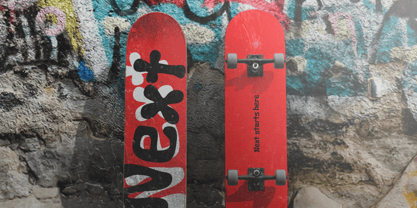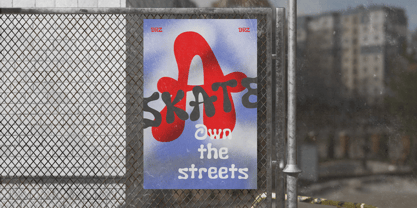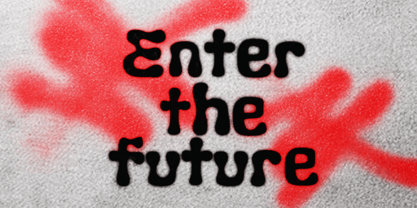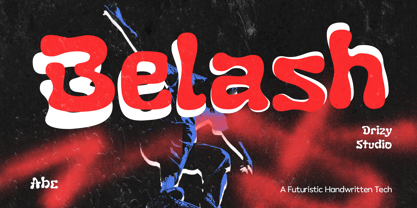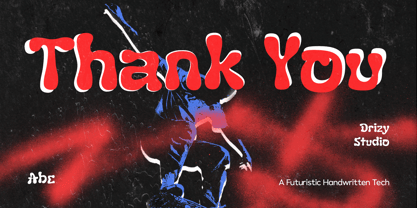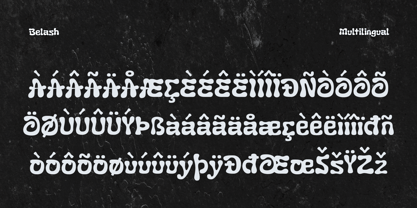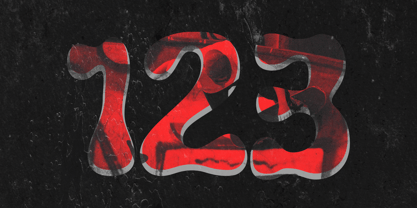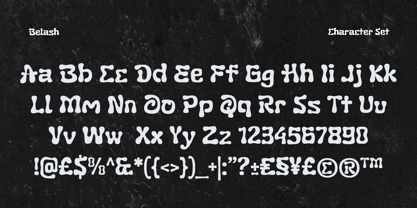
Belash
by Drizy Font
The Belash Font Family was designed by Panca Ahmadi Hasan and published by Drizy Font. Belash contains 1 styles. More about this family
Belash – Futuristic Handwritten Tech Font
Belash is a bold futuristic handwritten font that combines expressive handwritten strokes with a modern tech-inspired aesthetic. Designed with dynamic curves and an energetic flow, this font delivers a unique balance between human creativity and futuristic innovation, making it ideal for standout branding and eye-catching visual projects.
Whether you're designing gaming graphics, cyberpunk posters, digital interfaces, technology branding, music covers, streetwear collections, or social media content, Belash adds a distinctive handwritten edge while maintaining a sleek futuristic appearance. Its graffiti-inspired character gives every design an urban, creative, and contemporary feel.
Perfect for:
• Futuristic branding and logos
• Tech and gaming designs
• Cyberpunk and sci-fi projects
• Graffiti-inspired artwork
• Posters and album covers
• Social media graphics
• Apparel and streetwear designs
• Creative headlines and titles
Belash – Futuristic Handwritten Tech Font features:
• Uppercase & Lowercase
• Punctuation & Numbers
• Multilingual
Designers: Panca Ahmadi Hasan
Foundry: Drizy Font